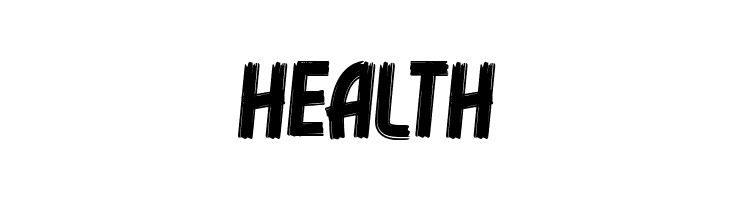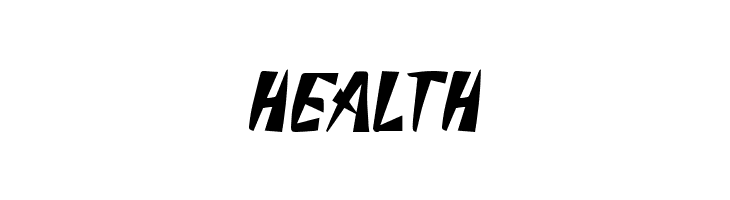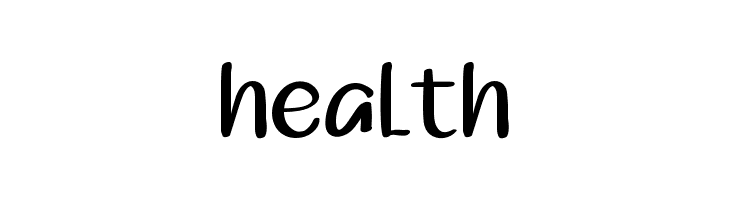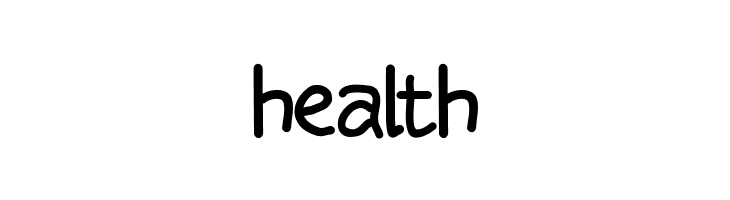
• AracneUltraCondensedLight
A tall, ultra-condensed, hand-drawn font with a light and airy style.
• AradevaDemoRegular
A playful, artistic font with geometric and hand-drawn elements.
• Arae GT Regular
A bold, angular font with dynamic, energetic lines and a slightly italicized slant.
• Arafura-Regular
A rugged, brush-textured font with an energetic, hand-drawn style.
• Aragel
A playful, casual handwritten font with smooth curves and rounded edges.
• Aragon
A playful, geometric font with bold, rounded characters enclosed in circular shapes.
• aragon
A playful, bold handwritten font with a casual and friendly style.
• aragon solid
A bold, geometric font with solid shapes and intricate negative space patterns.
• Araina
A classic cursive font with elegant, flowing script and interconnected letters.
• Arakav
A bold, hand-drawn font with dynamic, uneven strokes and a playful style.